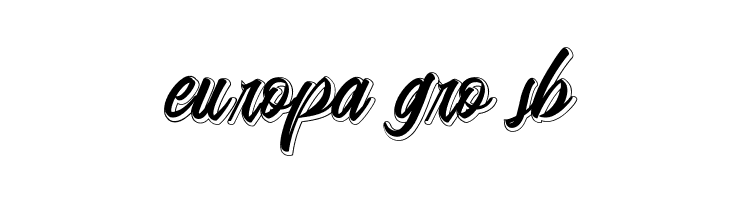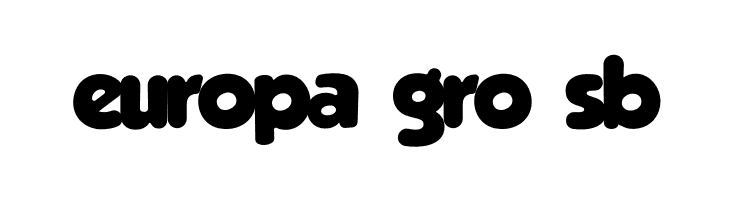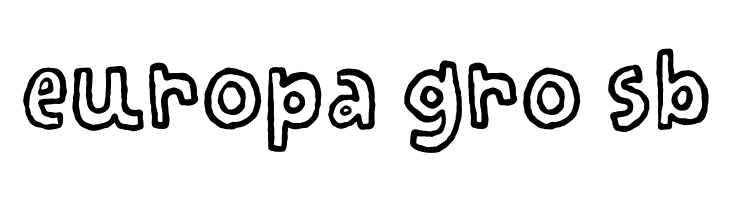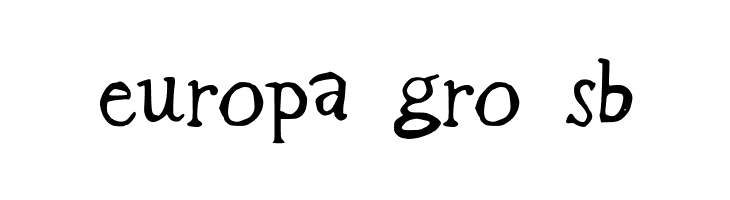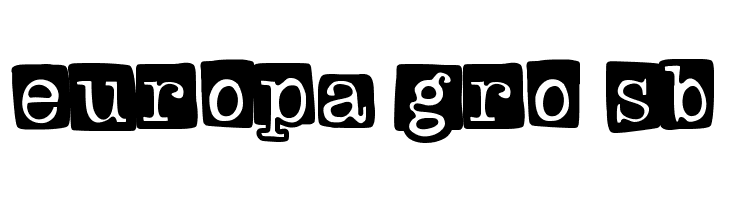
A playful, hand-drawn font with a whimsical, stitched appearance.
A bold, playful font with a stamped effect and irregular outlines.
A bold, dynamic script font with interconnected letters and a shadow effect.
A bold, playful font with rounded, thick strokes and a modern, decorative style.
A bold, playful font with irregular, cartoonish letterforms.
A bold, playful font with exaggerated, uneven strokes and a cartoonish flair.
A bold, italicized font with dynamic and energetic styling.
A bold, italic font with a dynamic and playful style.
A playful, rounded font with smooth curves and a friendly appearance.